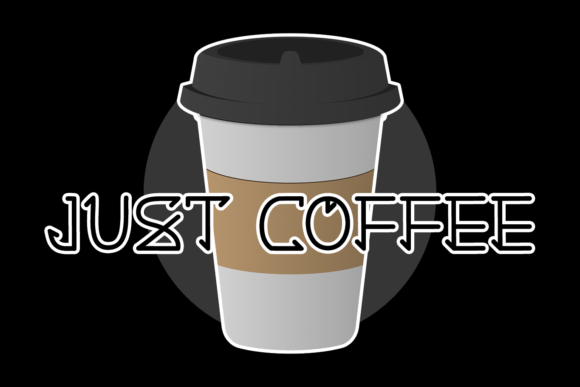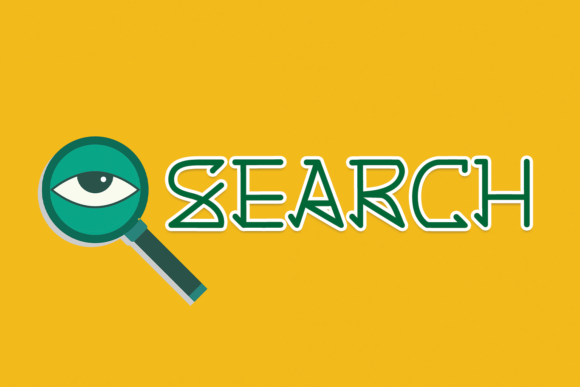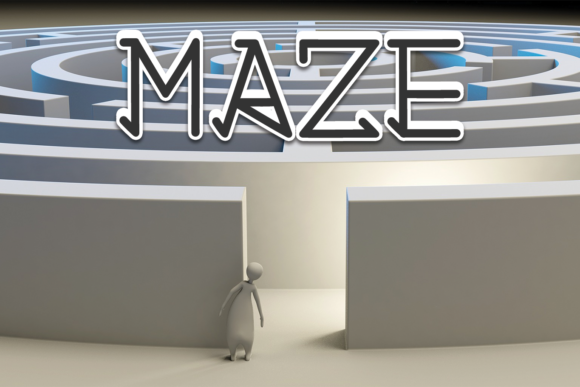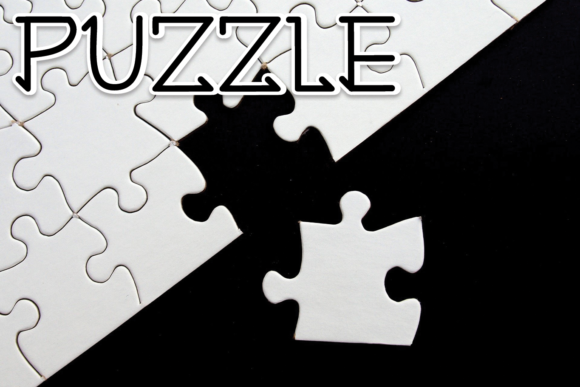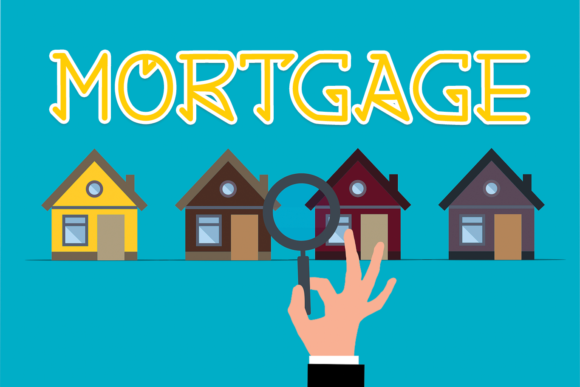
Discover the Endless Possibilities of Finding Font
Are you tired of using the same old fonts in your designs? Look no further! Finding Font is a great and fun display font that can add a fresh touch to your projects. With its unique and playful style, Finding Font is perfect for designers and crafters who want to make their work stand out. In this article, we’ll explore the features and benefits of Finding Font, and show you how to use it to take your designs to the next level.
What is Finding Font?
Finding Font is a display font designed to make a statement. Its bold and playful style makes it perfect for headlines, titles, and other display text. The font is carefully crafted to be highly legible, even at large sizes, making it ideal for use in posters, billboards, and other large-format designs.
Key Features of Finding Font
- Unique and Playful Style: Finding Font has a distinctive and fun style that’s sure to grab attention. Its bold lines and curvaceous shapes make it perfect for designs that need to stand out.
- Highly Legible: Despite its bold style, Finding Font is highly legible, even at large sizes. This makes it perfect for use in a wide range of designs, from posters to billboards.
- Versatile: Finding Font is a versatile font that can be used in a wide range of designs, from playful and fun to serious and professional.
Benefits of Using Finding Font
So why should you use Finding Font in your designs? Here are just a few benefits:
- Adds Visual Interest: Finding Font adds a fresh and playful touch to your designs, making them more visually interesting and engaging.
- Stand Out from the Crowd: With its unique style, Finding Font helps your designs stand out from the crowd and grab attention.
- Easy to Use: Finding Font is easy to use and pairs well with a wide range of other fonts, making it simple to incorporate into your designs.
How to Use Finding Font in Your Designs
Using Finding Font in your designs is easy! Here are a few tips to get you started:
- Use it as a Headline Font: Finding Font is perfect for use as a headline font, adding a bold and playful touch to your titles and headings.
- Pair it with Other Fonts: Finding Font pairs well with a wide range of other fonts, making it easy to use in combination with other typefaces.
- Experiment with Different Sizes: Finding Font is highly legible, even at large sizes, so don’t be afraid to experiment with different sizes and styles.
Tips and Tricks for Getting the Most out of Finding Font
Here are a few tips and tricks for getting the most out of Finding Font:
- Use it to Add Emphasis: Finding Font is perfect for adding emphasis to your designs, making it ideal for use in call-outs, quotes, and other highlighted text.
- Try it in Combination with Images: Finding Font looks great in combination with images, making it perfect for use in designs that feature photography or illustrations.
- Don’t be Afraid to Get Creative: Finding Font is a versatile font that can be used in a wide range of designs, so don’t be afraid to get creative and try new things!
| Font Name | Finding Font |
| Author | el hotcig |
Finding Font is a great and fun display font that’s perfect for designers and crafters who want to add a fresh touch to their projects. With its unique and playful style, highly legible design, and versatile nature, Finding Font is a font that’s sure to become a favorite in your design arsenal. So why not give it a try? Add Finding Font to your projects with confidence, and see the amazing results for yourself!